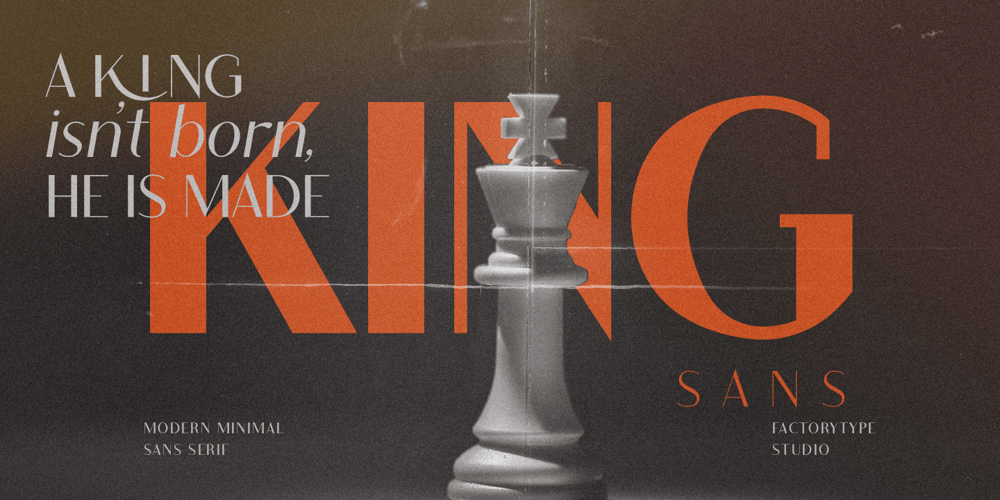
King Sans Font Family was designed by Wahyu Rahmawan and published by Factory738. King Sans contains 10 styles and family package options. King Sans is a stylish sans serif font family. The mix of modern and vintage elements results in an elegant design. The different weights offer a variety of options to help you find the best typographic color for your project. Lighter weights are ideal for body text, while heavier weights are best for high-impact headlines. The available stylistic Ligature provide a variety of different characters that give your project design or logo an unique shape. 5 Weights (Light, Regular, Semibold, Bold, Black) 2 Styles (Regular and Italic) Basic Latin A-Z and a-z Numerals & Punctuation Stylistic Ligatures Multilingual Support for ä ö ü Ä Ö Ü … Free updates and feature additions Thanks for looking, and I hope you enjoy it.